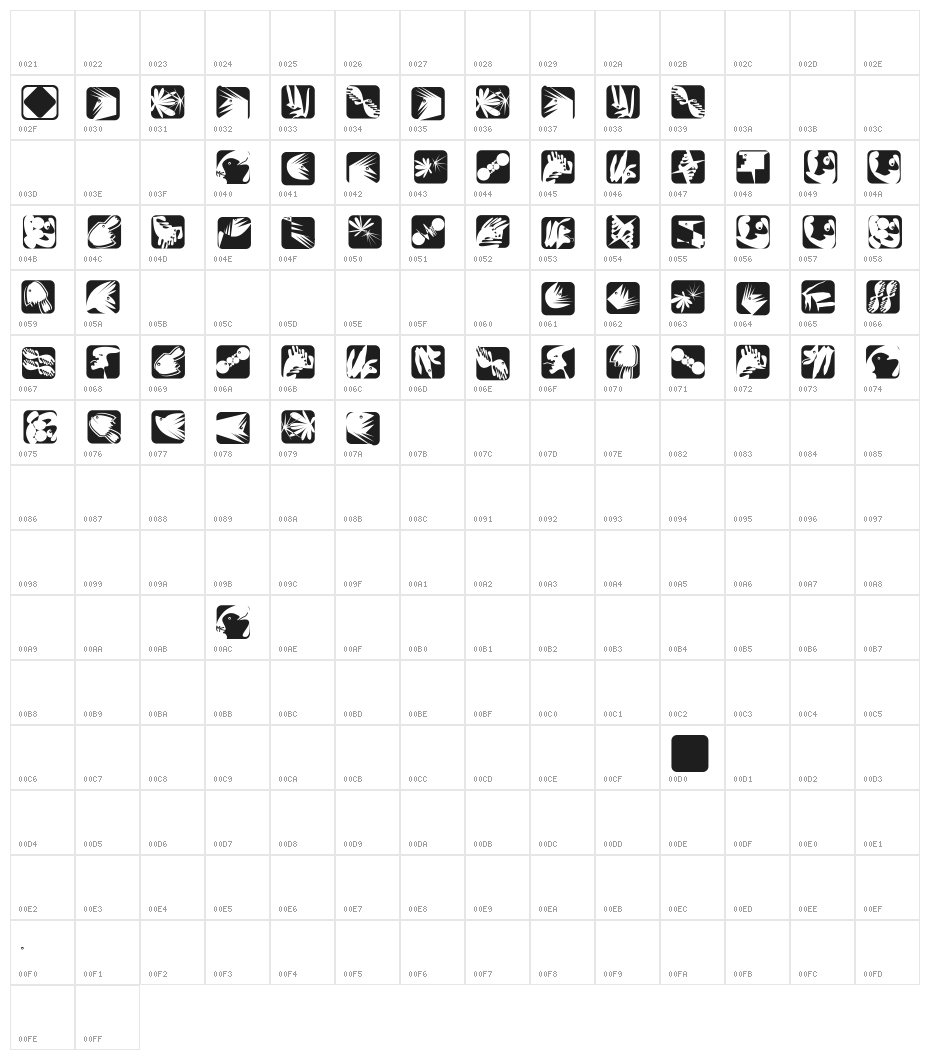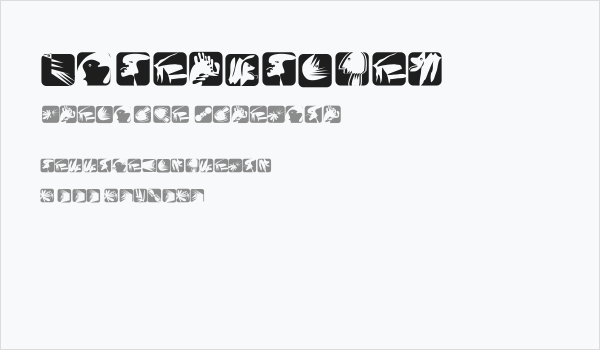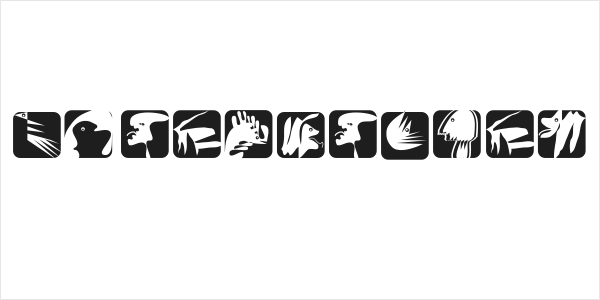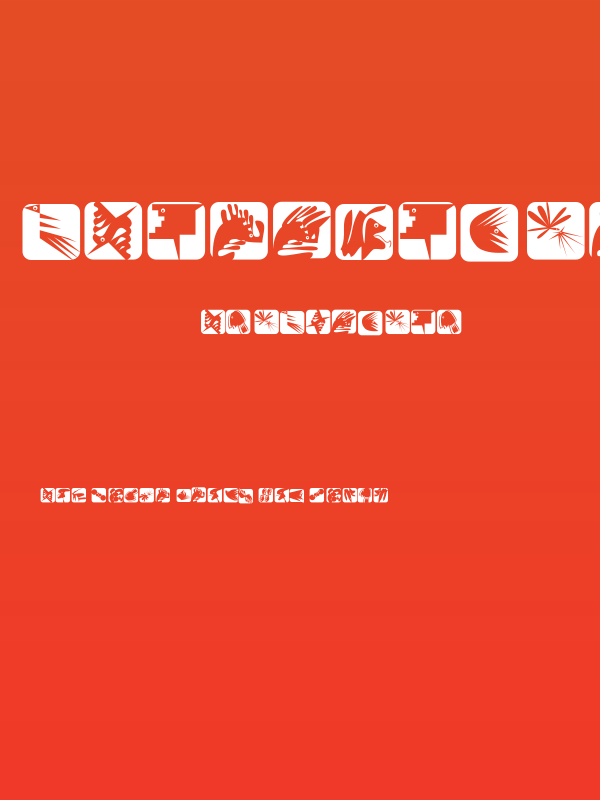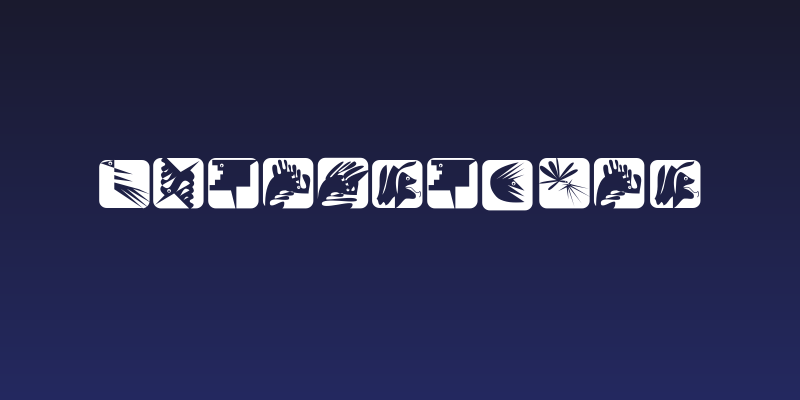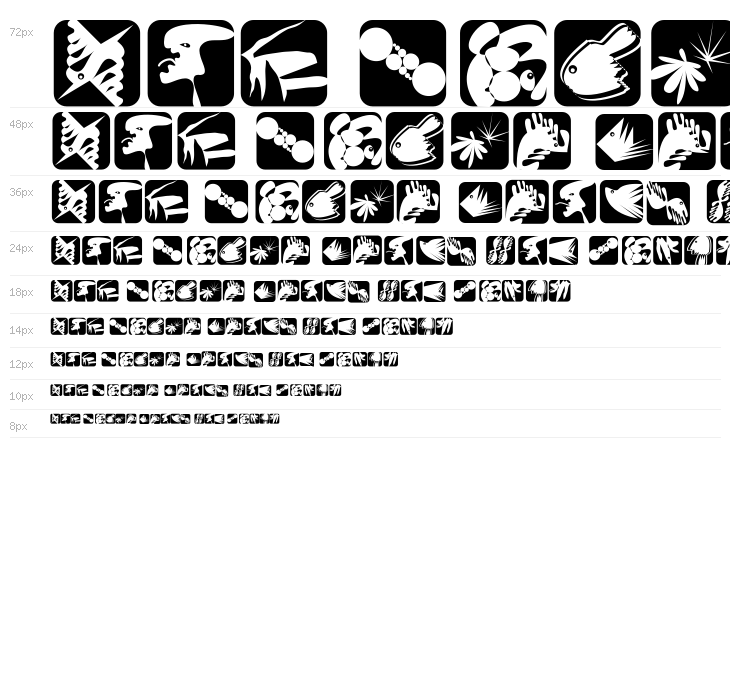
OtherShapes Font
OtherShapes Description
A decorative dingbat or symbol set featuring abstract, organic shapes and forms within rounded square backgrounds. The glyphs include hand-like, fish-like, and geometric motifs, rendered in high-contrast black and white, with playful and varied silhouettes.
| Overall Style | Decorative, Abstract, Modern |
| Use Case | Icons, Logos, Decorative elements, Visual accents |
| Proposed Projects | Branding, icon sets, posters, album covers, digital art, educational materials, creative infographics. |